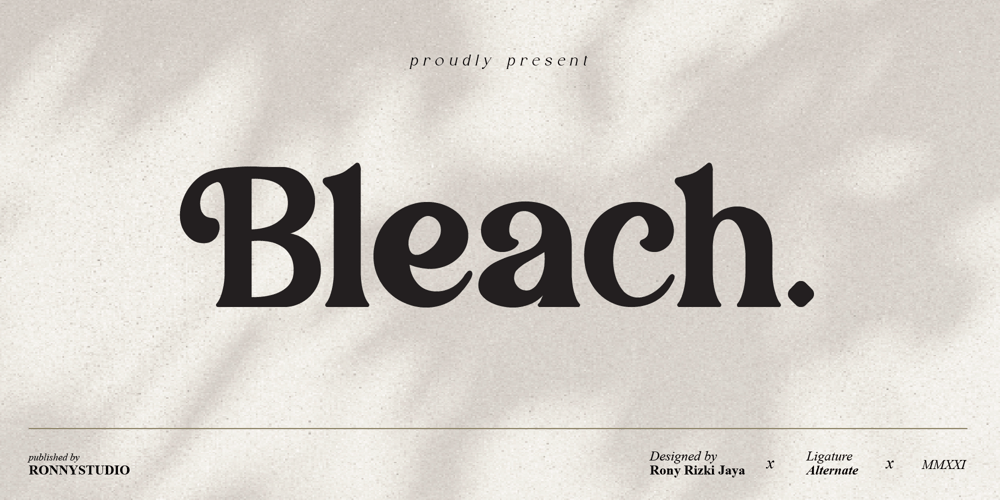
Bleach Font Family was designed by Rony Rizki Jaya and published by Ronny Studio. Bleach contains 2 styles and family package options. Bleach is a luxurious and beautiful serif font. It looks lovely on a variety of designs requiring a personalized style, such as wedding invitations, thank you cards, weddings, greeting cards, logos and so on. Calfine is PUA encoded which means you can access all glyphs and swashes with ease!It is suitable for branding, invitations and business cards, christmas cards, branding, logos, product packaging, invitations, t-shirts, poster labels etc.2 Style Font :- Regular- ItalicBleach Features :- Uppercase- Lowercase- Numbers & Punctuation- Ligature- Alternative- Multilingual Support- Simple installationAll of features and special characters of this font are included in one file. So it is easy to accessed by using program or software that support the opentype like Adobe Illustrator, Adobe Photosop, and Adobe Indesign). This font also very easy to use because compatible for all software even for non-opentype supported.Please comment us if you have any questionsThank you and have a nice day.thank you